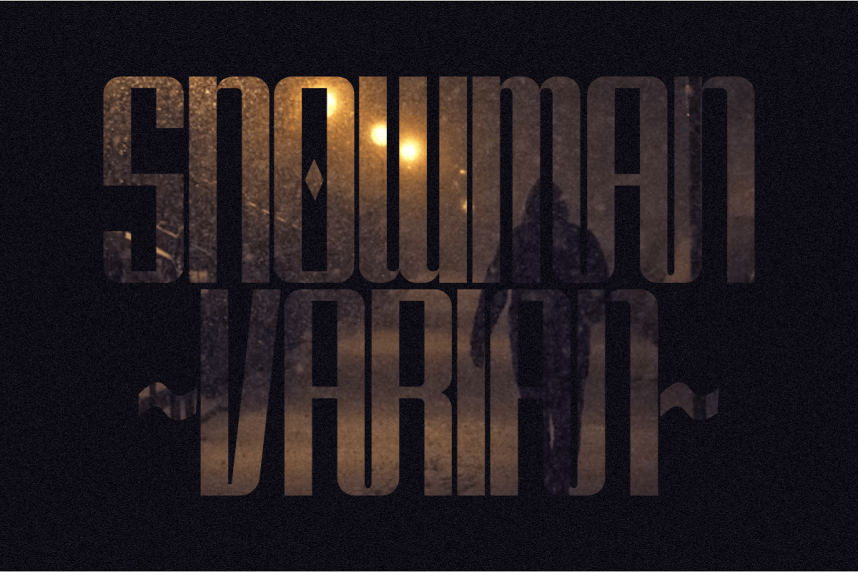
Snowman Sans Serif Font
Snowman Sans Serif Font is a bold and elegant Modern Condensed Sans Serif font, designed to make a huge impact. Its unique, stylized curves and ultra-tall structure give it a sleek, contemporary look, perfect for luxury branding, fashion editorial, and minimal posters. The typeface includes subtle ligatures, offering a custom, high-end feel for sophisticated logos and impactful headlines. Snowman delivers a clean, memorable, and professional aesthetic for both digital and print design projects.